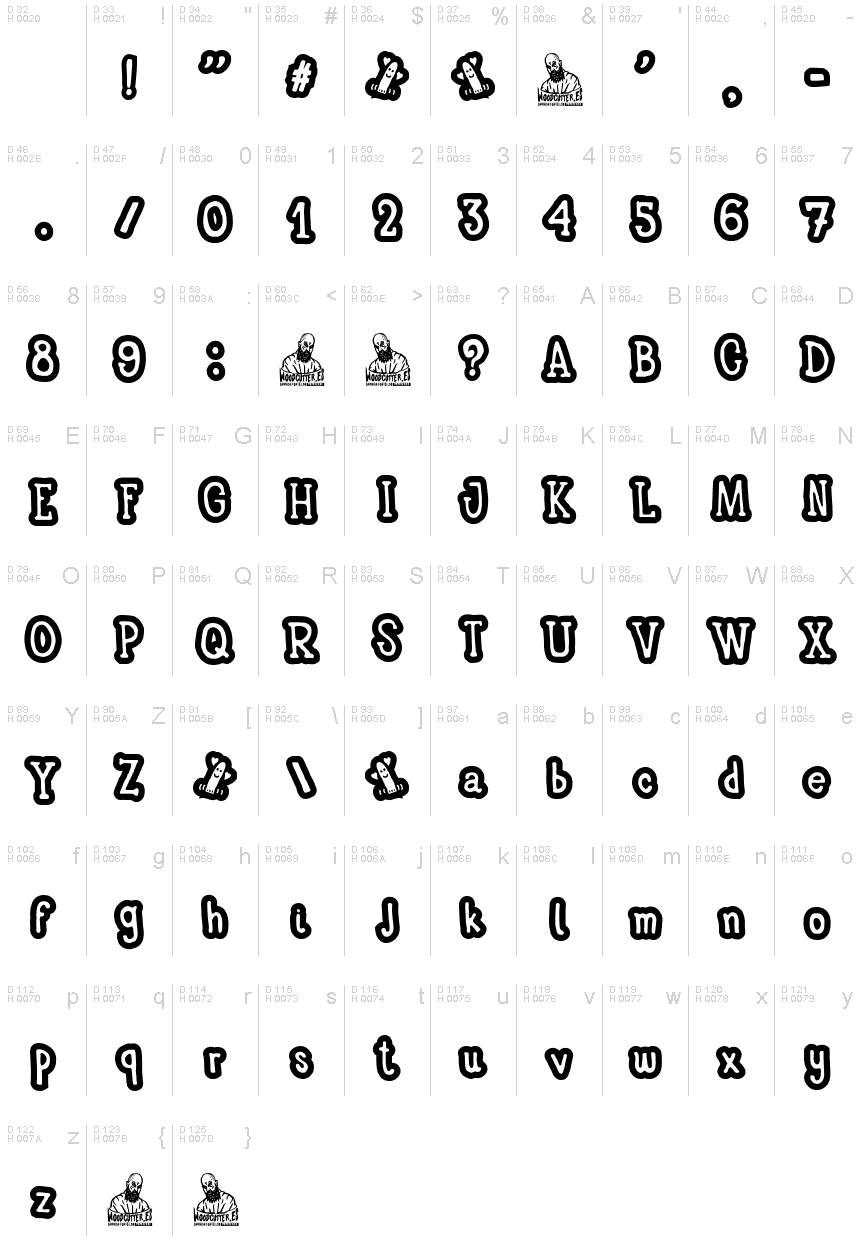
Masturbator Discipline
Masturbator Discipline, a bold and decorative display font by Woodcutter, exudes a rebellious spirit with its outlined style.
Perfect for eye-catching headlines, logos, and posters that demand attention, this font adds an edgy touch to any project. Its bold weight commands authority and amplifies the impact of your message. Suitable for fashion magazines seeking a unique aesthetic or tattoo parlors looking to make a statement, Masturbator Discipline ensures your design stands out from the crowd.
Let this font unleash your creativity and captivate audiences with its distinctive charm.
Masturbator Discipline.